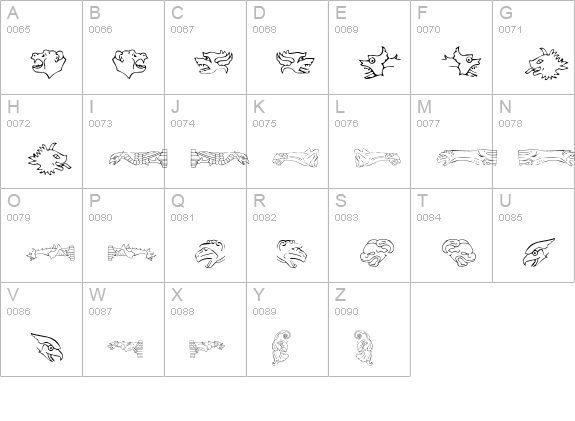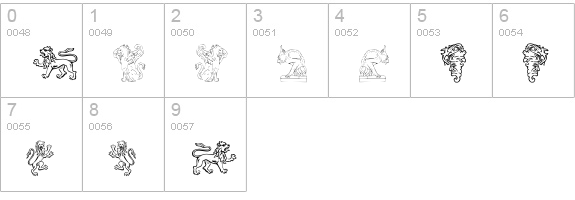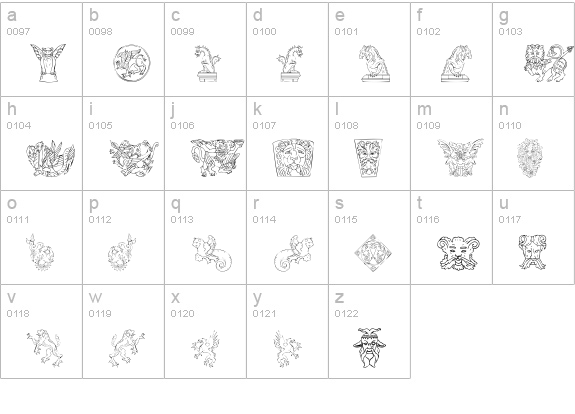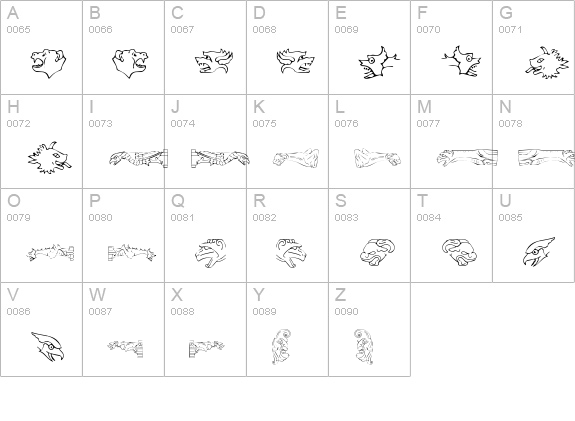
Monsters of Stone Font Details
Monsters of Stone font is a bold and powerful typeface inspired by ancient stone carvings and mysterious creatures. Its rugged, jagged edges and intricate details give it a unique and fantastical appearance that is perfect for adding a touch of mystique to your designs. This font is a versatile choice for a wide range of projects, from book covers to posters to branding materials. Best of all, Monsters of Stone font is available for free download at FontsMarket.com. Whether you're a designer looking to add a touch of the supernatural to your work or a hobbyist wanting to explore the world of typography, this font is a must-have addition to your collection. Download Monsters of Stone font today and unleash the power of ancient monsters in your designs!